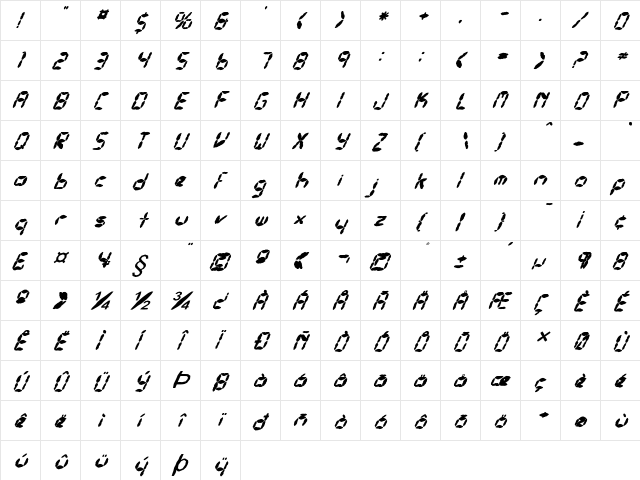
FZ DIGITAL 10 MANGLED ITALIC Normal
Design Context for FZ DIGITAL 10 MANGLED ITALIC Typeface
FZ DIGITAL 10 MANGLED ITALIC channels digital-age aesthetics through its sharp, structured letterforms — ideal for brands that want to signal innovation. The slanted form adds forward momentum and visual energy.
Pro Tip: Try FZ DIGITAL 10 MANGLED ITALIC with generous letter-spacing in UI labels and navigation — the geometric forms benefit from room to breathe.